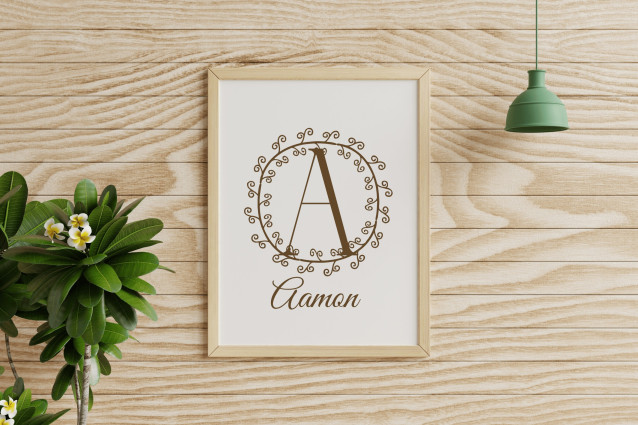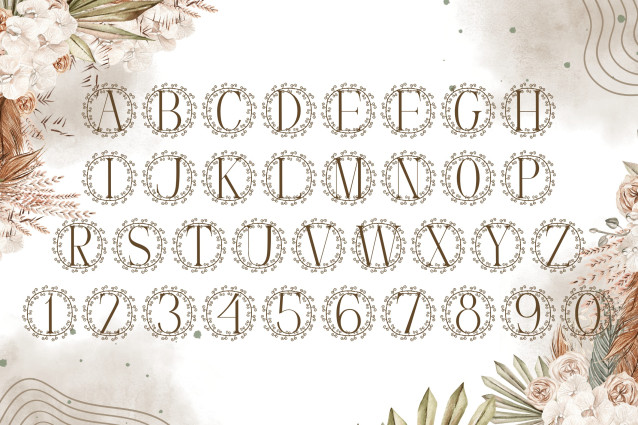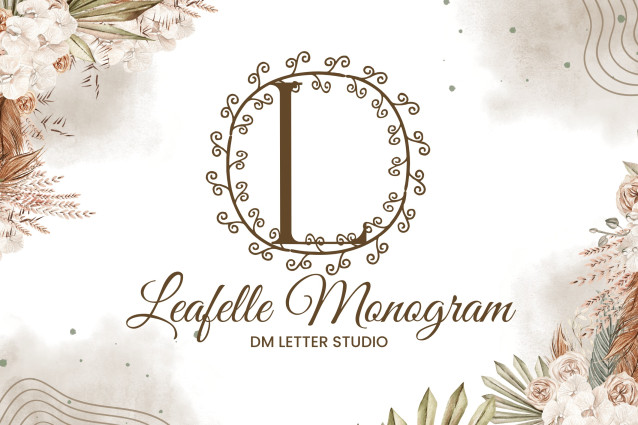
Leafelle Font
Leafelle Monogram is a graceful serif monogram font adorned with delicate leaf embellishments, making it the perfect choice for personalized, nature-inspired designs. Each uppercase letter is infused with gentle organic details that add charm and sophistication to any creative project—ideal for wedding invitations, brand identity, packaging, and home décor.